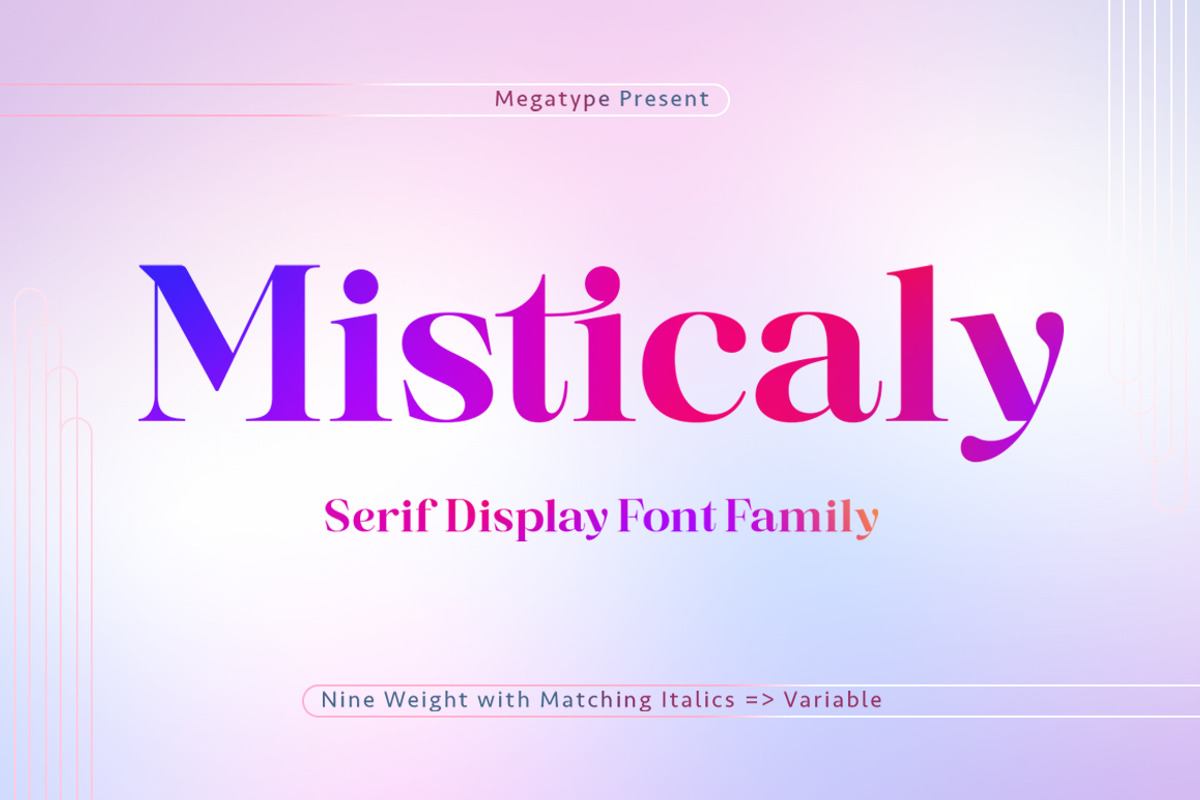
Misticaly Serif Font Free Download is a sophisticated and elegant typeface that blends timeless serif elements with a modern twist. Its clean lines and distinct letterforms make it perfect for luxury branding, editorial designs, book covers, and high-end marketing materials. The refined serifs add a classic touch, while the contemporary style ensures your designs stand out with both elegance and readability. Whether you’re creating a chic logo, designing a stylish magazine layout, or working on an upscale product package, Misticaly Serif Font Free Download lets you experiment with its versatile style in personal projects before purchasing a commercial license. Elevate your designs with this beautifully crafted serif font that combines traditional charm with modern appeal.